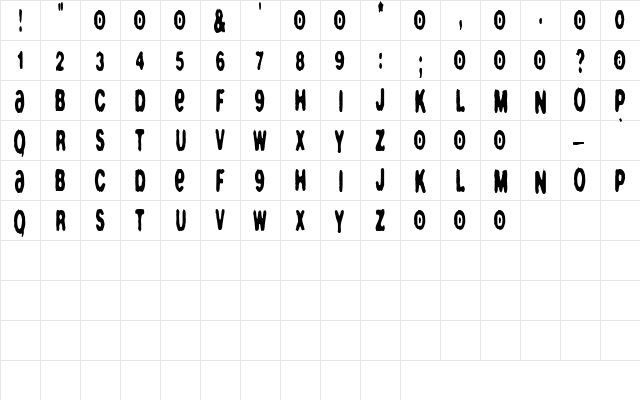
ZimmyTheLiar Regular
Design Context for ZimmyTheLiar Typeface
ZimmyTheLiar offers clean, dependable letterforms without strong stylistic allegiance, making it a practical choice for designers who need flexibility.